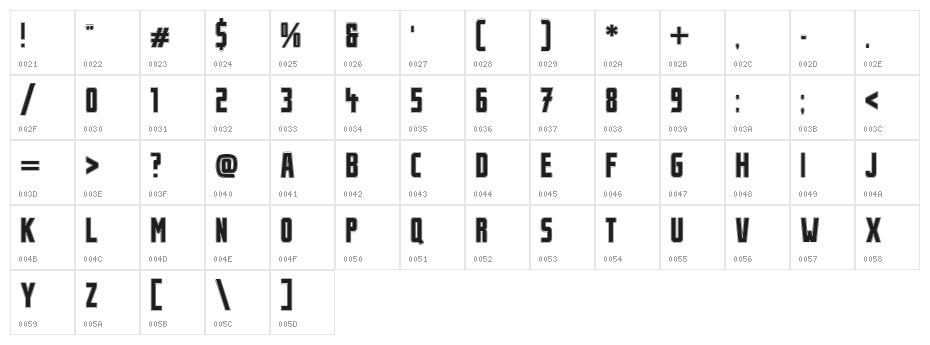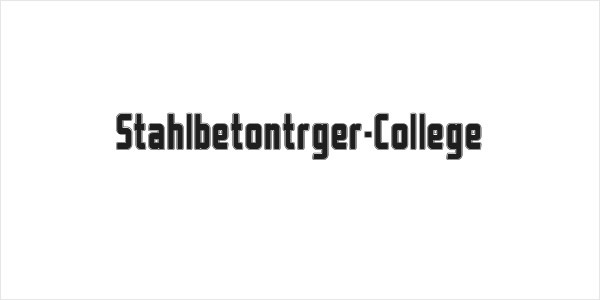
StahlbetontrŠger-College Font
StahlbetontrŠger-College Description
This font features a bold, geometric style with a strong presence. The characters are outlined, giving them a three-dimensional effect that stands out. The uppercase letters are tall and commanding, while the lowercase letters maintain a consistent height, ensuring readability. The numerals are equally bold, matching the overall aesthetic of the alphabet. Special characters are designed with the same attention to detail, making them suitable for various applications. The font's design is modern and striking, ideal for projects that require a bold statement.